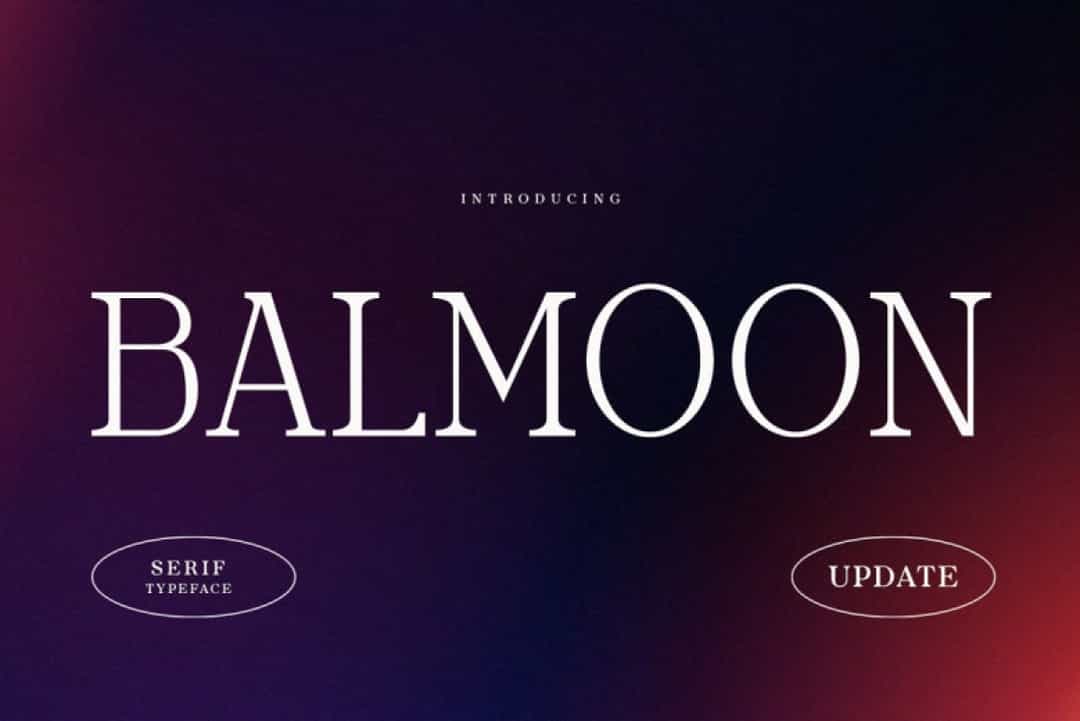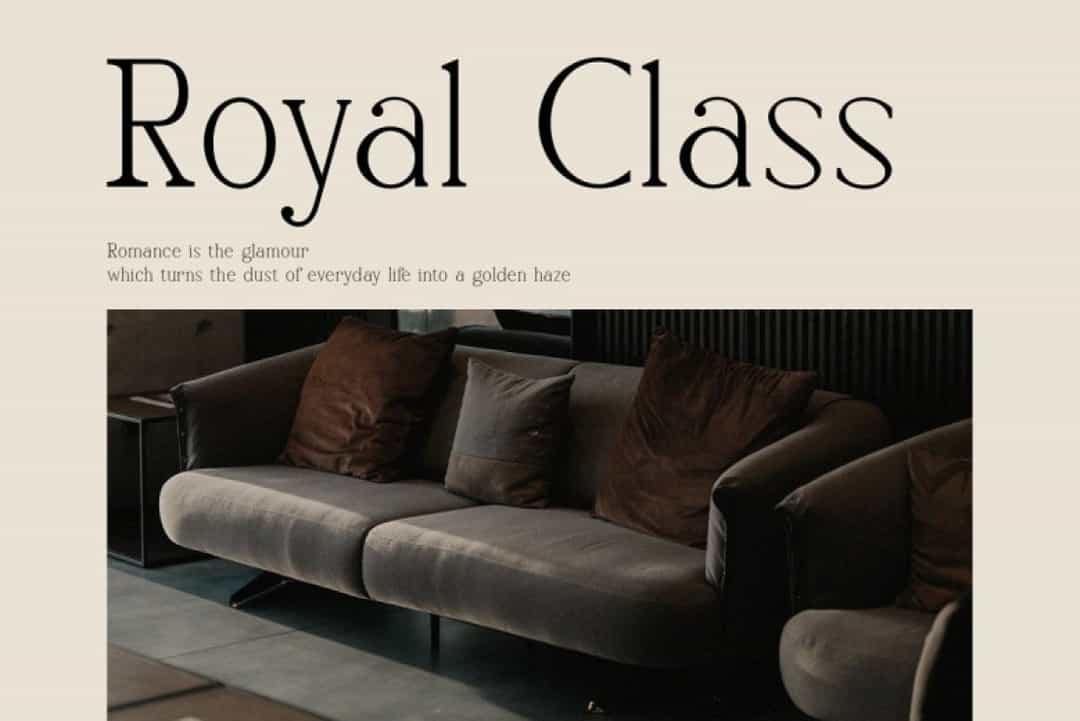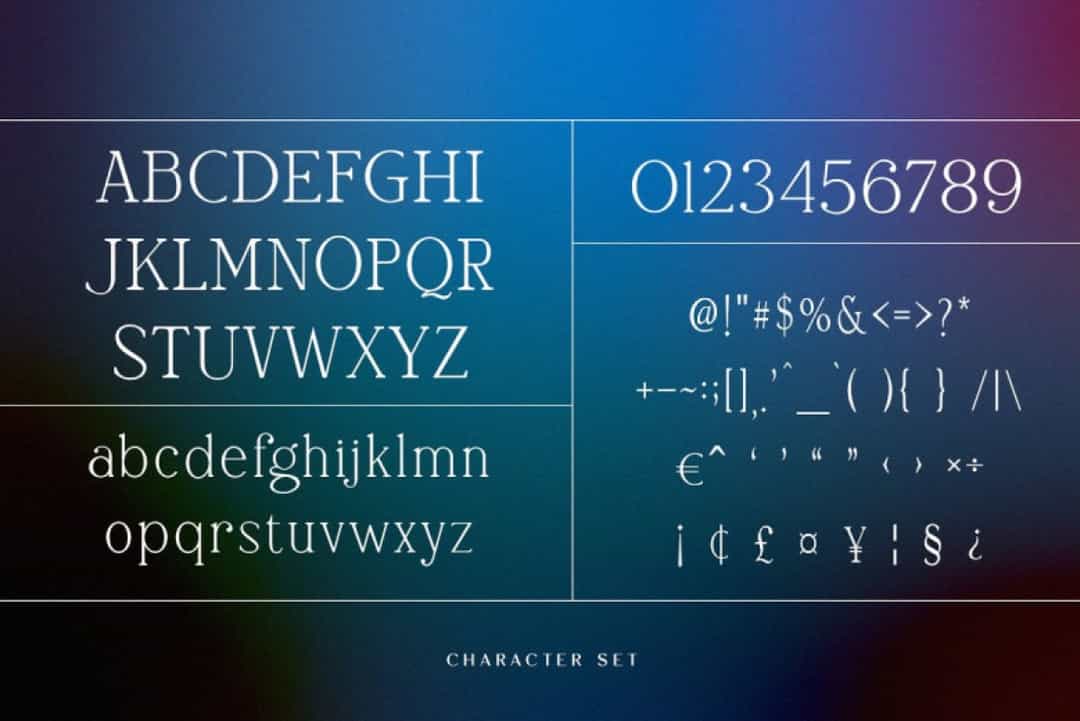
At Balmoon Font, we take great pride in creating elegant serif fonts. In this version of Balmoon we have attempted to improve on certain letters, punctuation marks and features which were not elegant in its previous form.